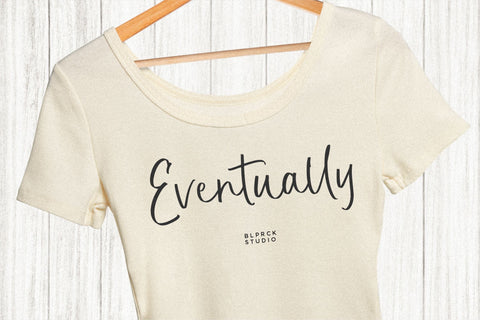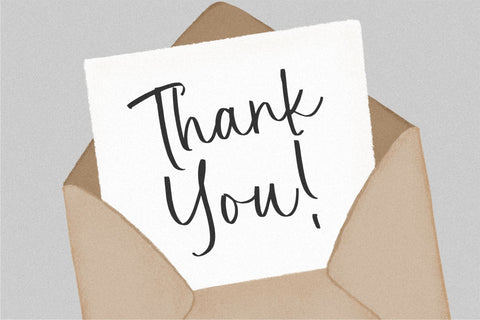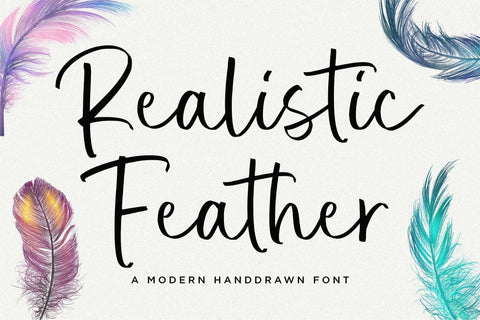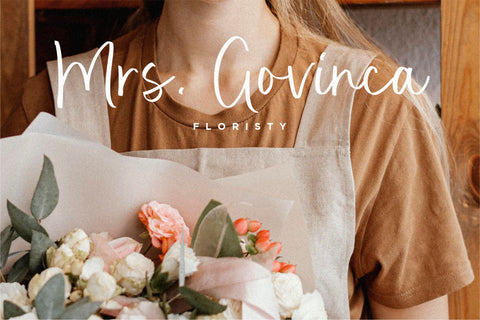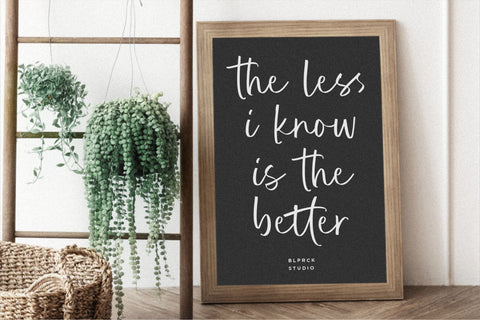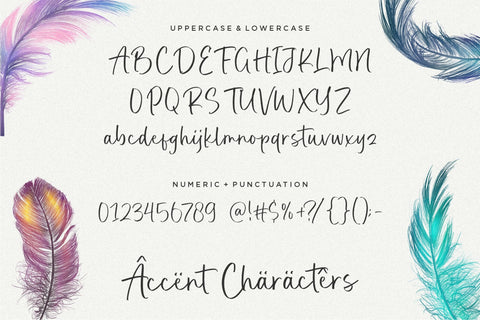
Realistic Feather Font
Realistic Feather is a Modern Handdrawn Font that's perfect for adding a personal touch to your design projects! With its natural, organic feel and unique character.
Crafted with care and attention to detail, this font is incredibly versatile and can be used for a range of design projects, including logos, branding, invitations, and more. Its modern, handwritten style gives it a unique character that's sure to make an impact.